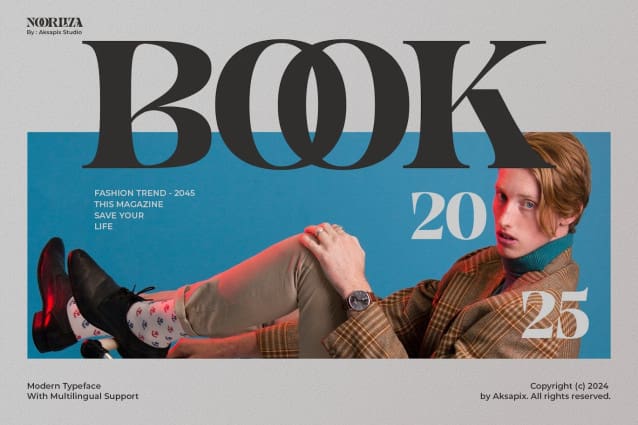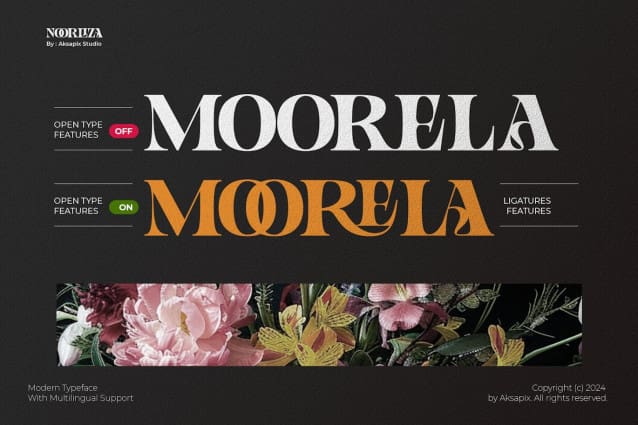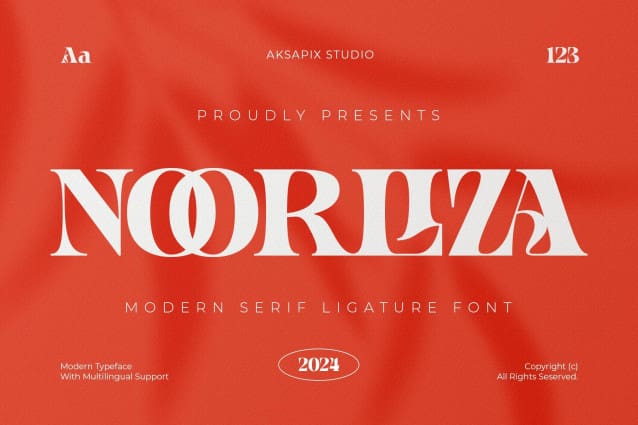
Noorliza Font
Noorliza Font – Modern Serif Ligature Font, a sophisticated font that combines classic elegance with contemporary style. Noorliza is designed to add a touch of sophistication to your projects with its well-crafted ligatures and versatile character set. Whether you are working on branding, editorial design, or any other creative endeavor, this font offers a perfect blend of beauty and functionality.